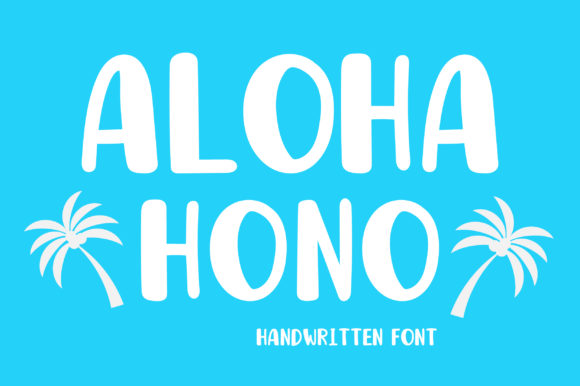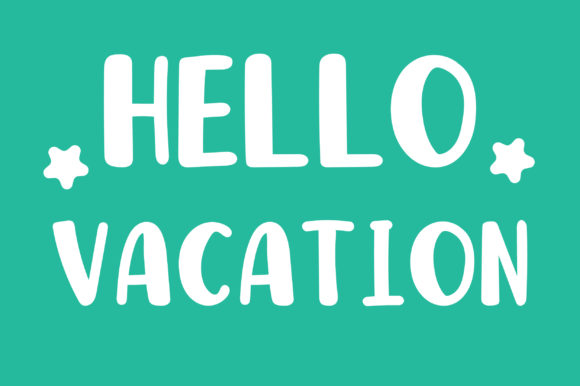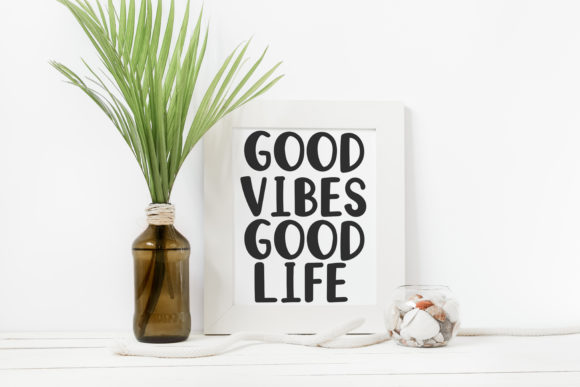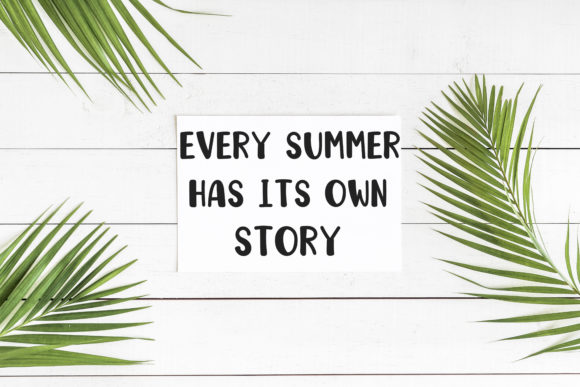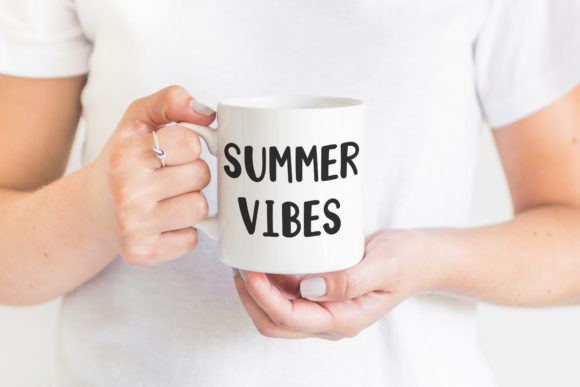
Aloha Hono Font
About Aloha Hono Font
Aloha Hono is a bold handwritten font, carefully handcrafted to become a true favorite. Its casual charm makes it appear wonderfully down-to-earth, readable and, ultimately, incredibly versatile. Aloha Hono will look outstanding in any context, whether it’s being used on busy backgrounds or as a standalone headline!